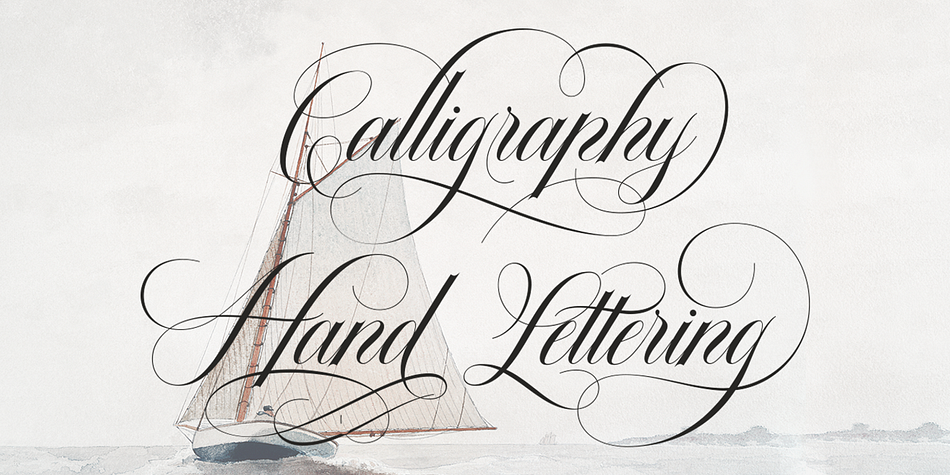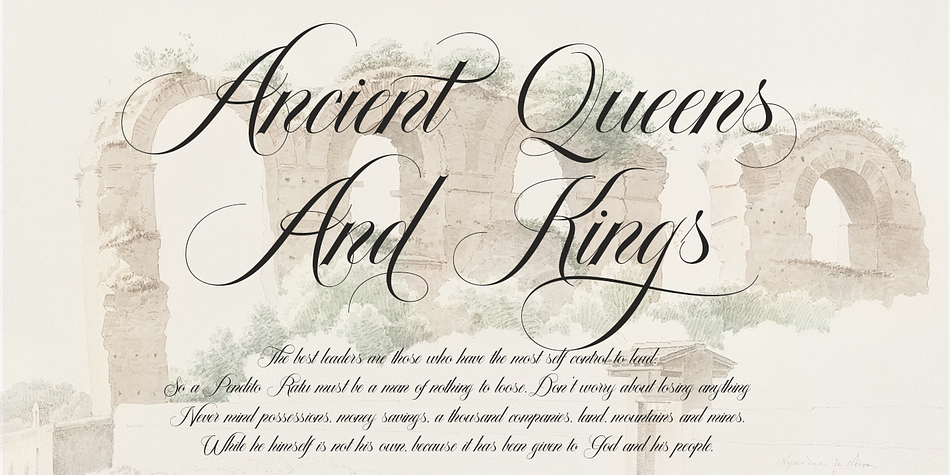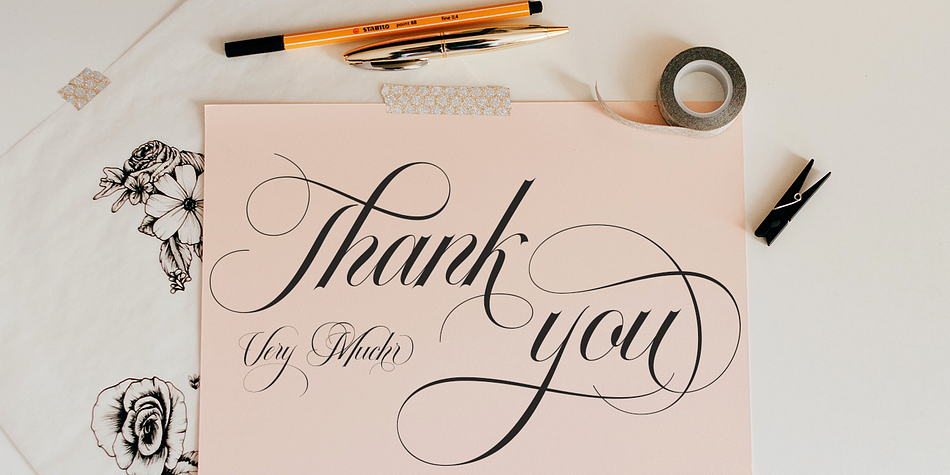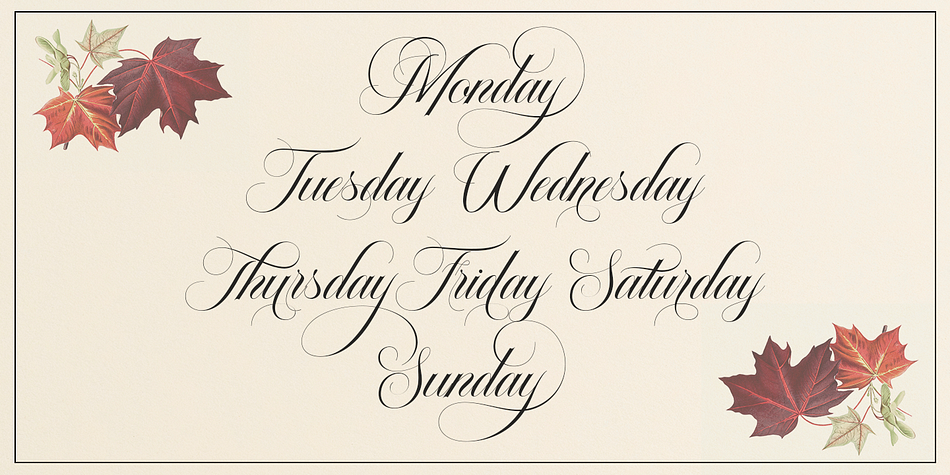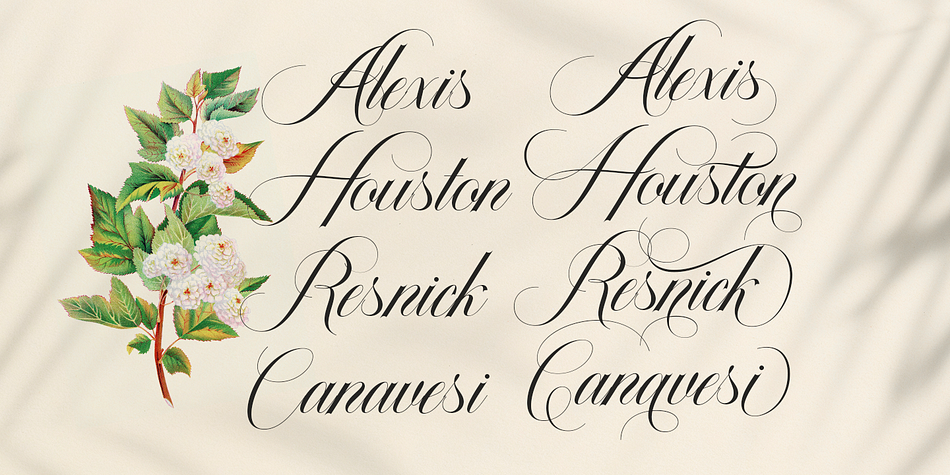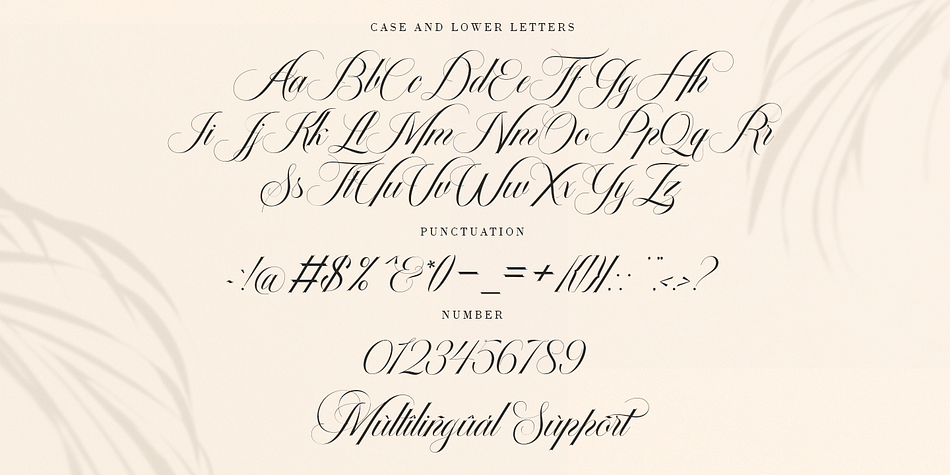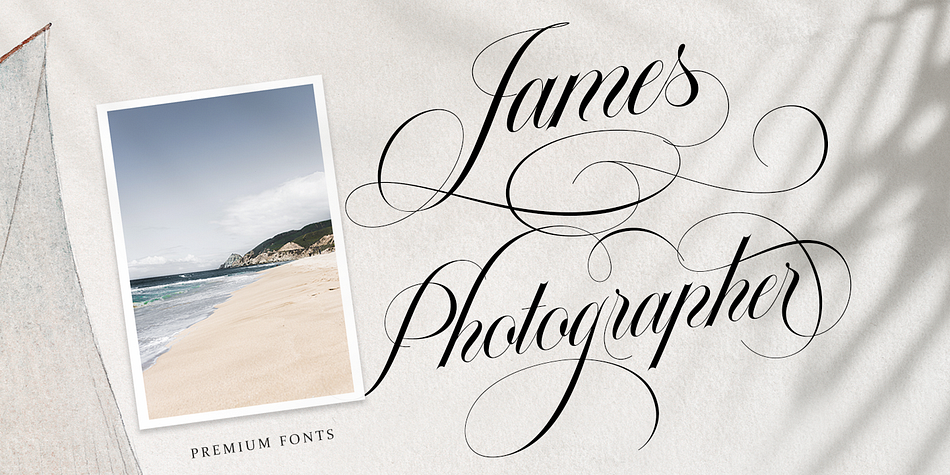
The Dellgado
The Dellgado is a modern calligraphy font family published by Pista Mova.
The Dellgado is the font of choice for writing things beyond words. This typeface is designed with great detail to convey stylish elegance. So, it can be said, the character of the transformation is very beautiful, a kind of classic ornamental copper script.
The Dellgado provides alternative variants of most fonts, binders and many calligraphy tips, ideal for elegant labels, high-end packaging, stationery and compositions for certain brands, beautiful titles, paragraphs, letters and short text, intended for read only with the eyes or meant to be whispered into someone’s ear.
The Dellgado includes various language support. It features OpenType with alternative styles and elegant binders. The OpenType features don’t work automatically, but you can access them manually and for best results your creativity will be required in combining variations of these Glyphs. And also a touch of ornament makes this font look elegant.